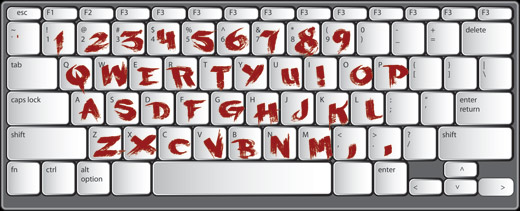
Scraper™
EXCLUSIVE! - All new Graffiti Font™
This rough & bold style uses detail & motion to create text with gritty character. These fat letters mimic a paintbrush or pallette knife in a simple graff style.